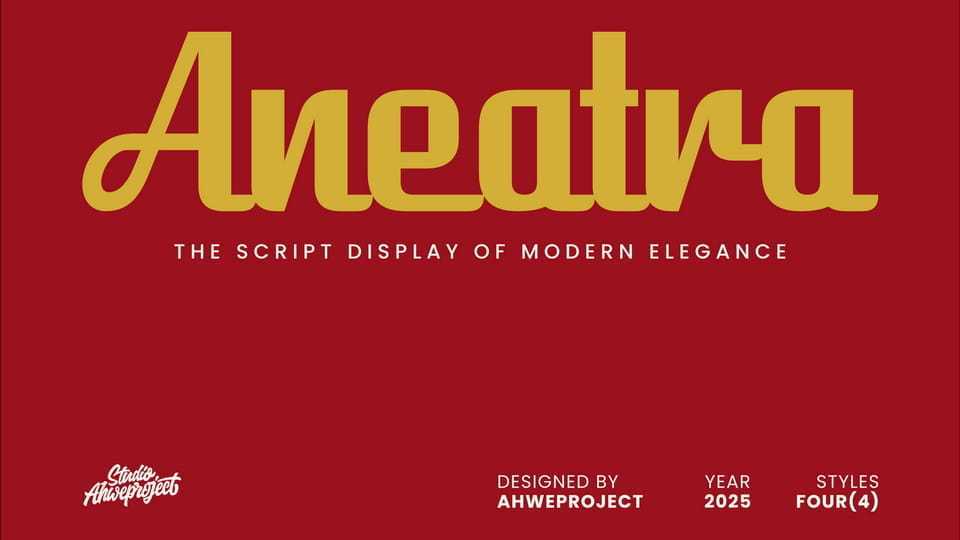
Download Aneatra font, a modern script display typeface that blends bold style with timeless elegance. Designed for logos, branding, posters, packaging, and editorial designs, Aneatra offers a unique balance of smooth curves and sharp edges that make every word stand out.